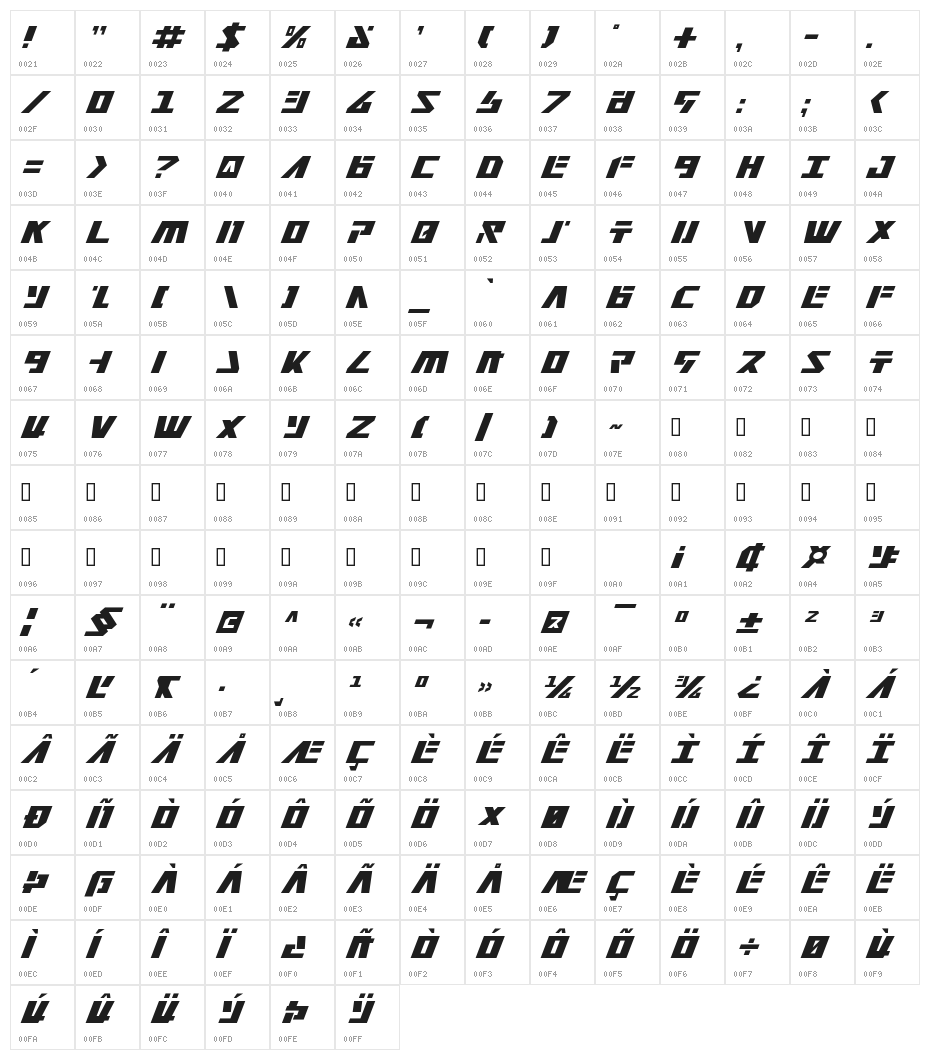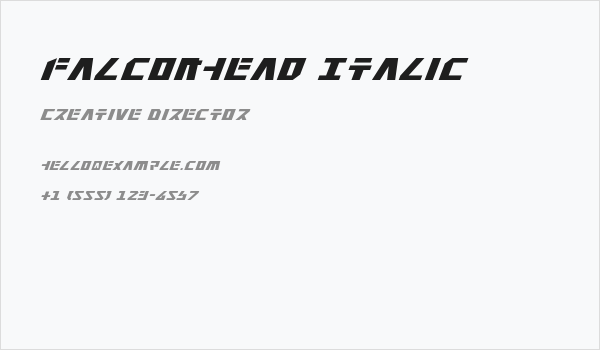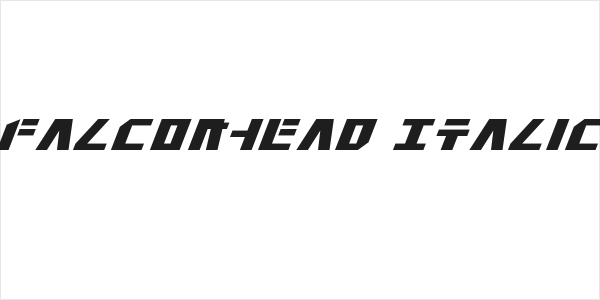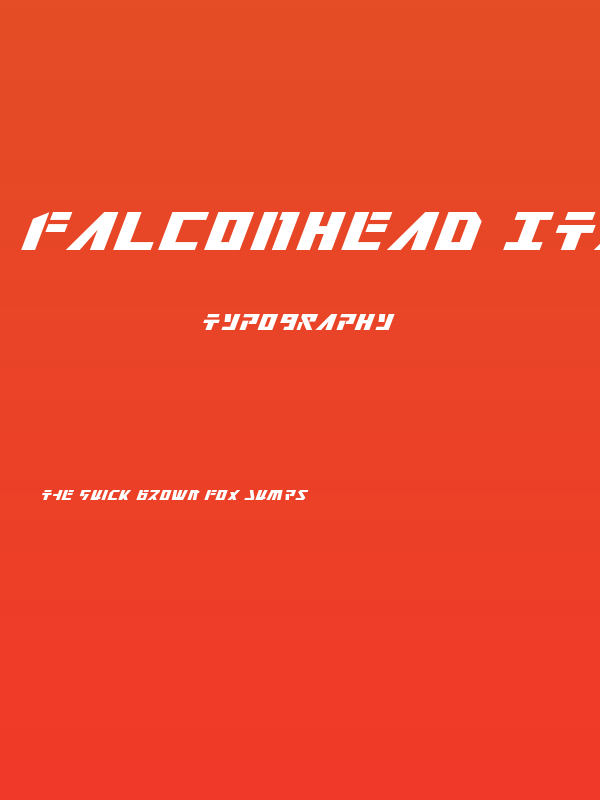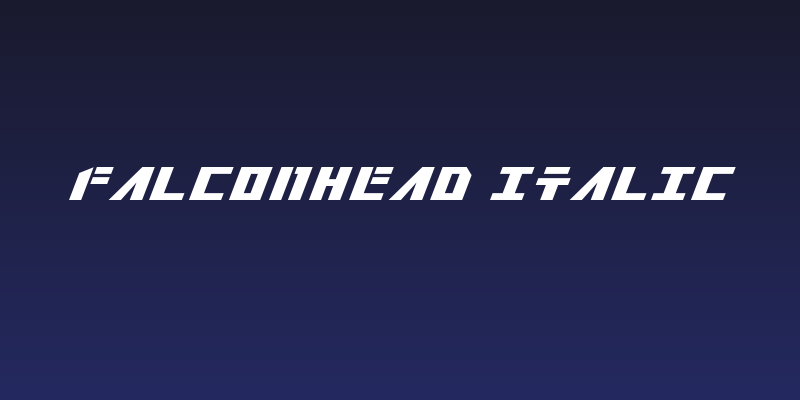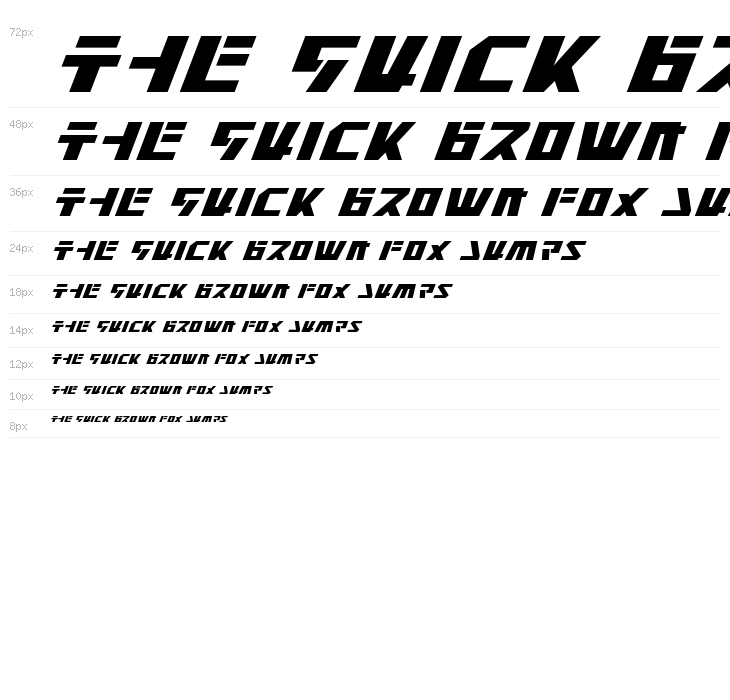
Falconhead Italic Font
Falconhead Italic Description
This font features a bold and dynamic design with a strong italic slant, giving it a sense of movement and energy. The characters are angular and geometric, with sharp edges and a futuristic feel. The uppercase and lowercase letters maintain a consistent style, while the numbers and special characters complement the overall aesthetic. The font's boldness and unique style make it stand out, suitable for projects that require a modern and edgy look.
| Proposed Projects | Ideal for sports branding, video game titles, sci-fi posters, and dynamic logos. |